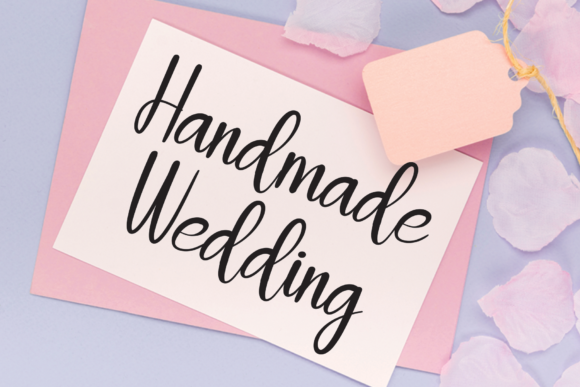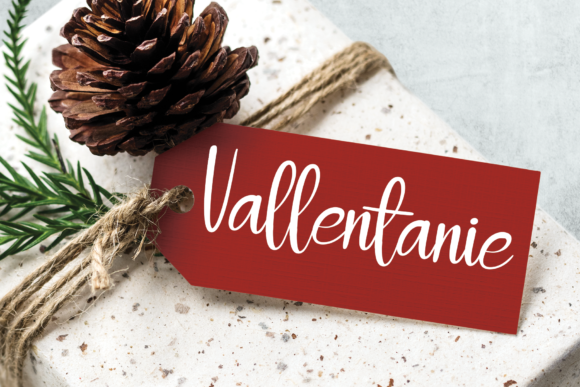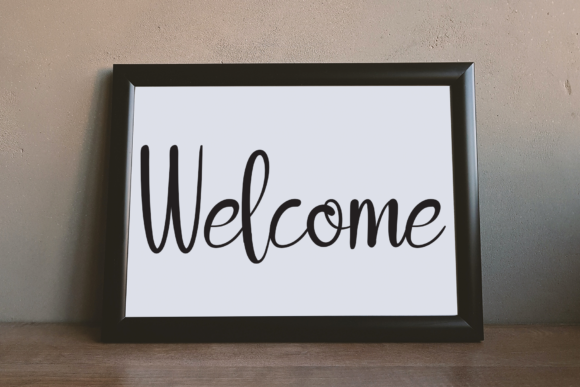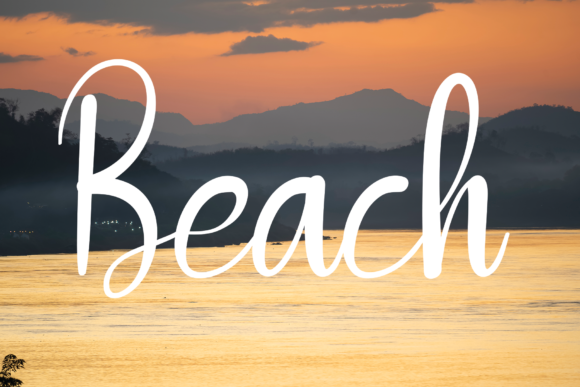
Introduction to Mellinda Font
As a designer, there’s nothing quite like the thrill of bringing a creative project to life. It’s the moment when all the pieces come together, and your vision starts to take shape. For me, that moment often begins with the perfect font. And that’s exactly what I’m excited to share with you today – the Mellinda Font. This elegant, handwritten font is more than just a design resource – it’s a versatile tool that can elevate your work from simple to stunning.
With its high-quality lines and subtle flair, Mellinda Font is the perfect addition to any project. Whether you’re creating wedding invitations, business cards, or social media posts, this font is sure to bring a touch of sophistication and personality to your design. And the best part? You can download Mellinda Font for free, complete with a transparent background that makes it easy to use in any creative project.
Key Features of Mellinda Font
- High-quality, professional design suitable for various creative projects, including logos, branding, and advertising materials.
- Includes a wide range of characters, including uppercase and lowercase letters, numbers, and special symbols.
- Designed to be highly legible, even at small font sizes, making it ideal for use in digital and print media.
- Features a clean, modern aesthetic that is perfect for a variety of design applications, from corporate identities to packaging design.
Honest Review: Mellinda Font
I recently had the opportunity to work with the Mellinda Font, and I must say it’s been a game-changer for my creative projects. The font is incredibly versatile and perfect for a variety of design resources, from logos to posters.
- ✨ High quality design: The Mellinda Font is crisp, clean, and has a beautiful texture that makes it stand out in any design.
- ⚠️ Limited character set: While the font is available in multiple weights, the character set is somewhat limited, which may not be ideal for complex design projects.
- ⚠️ Not suitable for small text: Due to its elegant design, the Mellinda Font may not be the best choice for small text or body copy.
Overall, I’m thoroughly impressed with the Mellinda Font. It’s a high-quality design resource that’s perfect for a wide range of creative projects. With a few minor limitations in mind, I highly recommend giving it a try – especially considering it’s free to download!
Mellinda Font
Mellinda Font is a free design resource that offers a high-quality, elegant script font perfect for various creative projects. Its transparent background makes it ideal for use on any background color or image.
Tips for Getting the Most Out of Mellinda Font
To get the most out of Mellinda Font, try combining it with other design elements, such as images or other fonts, to create a unique and eye-catching visual effect.
Mellinda Font is ideal for use in various creative projects, including